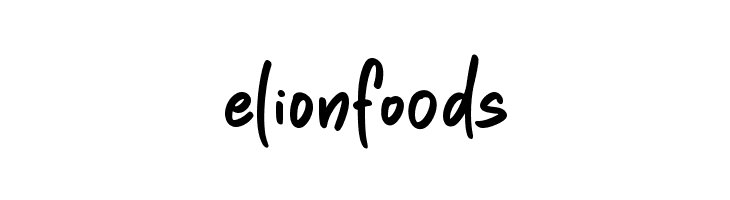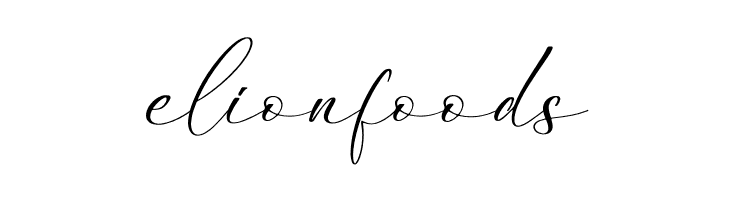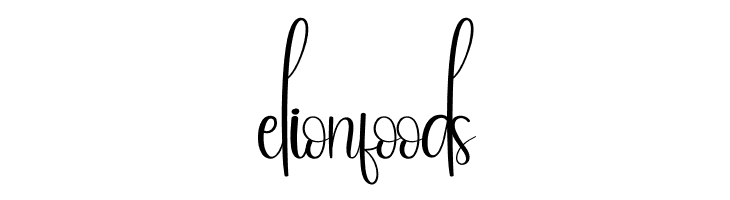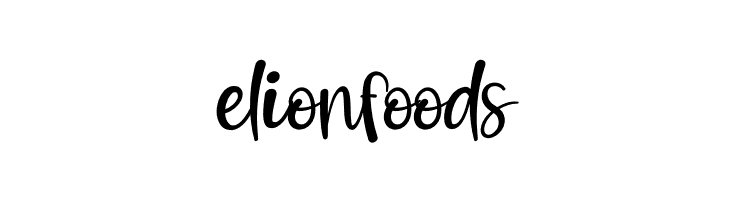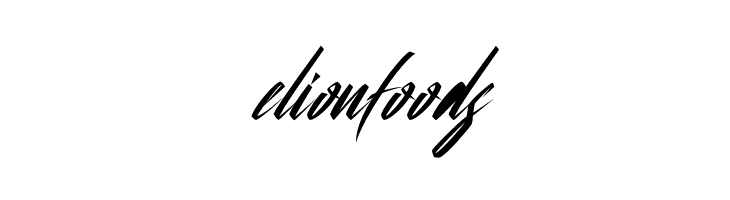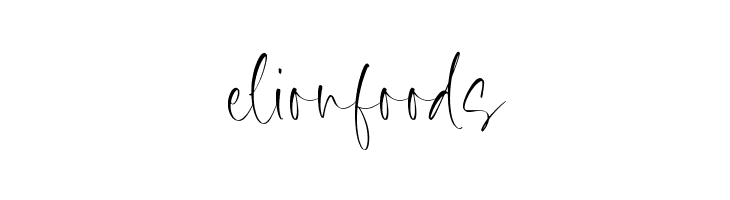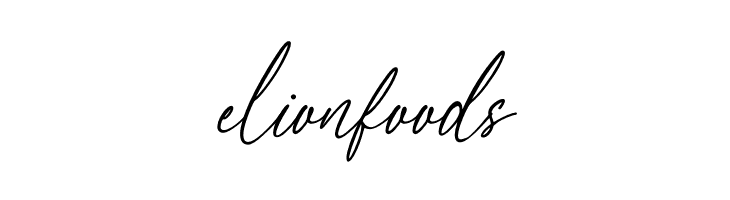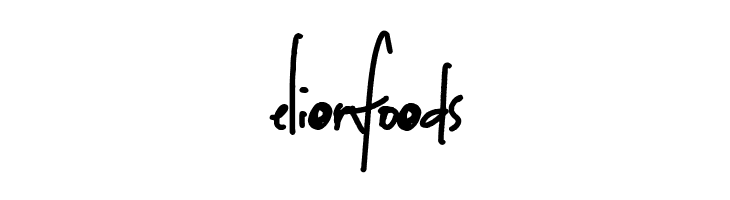
Casual handwritten script with playful, energetic strokes.
A refined, calligraphic script font with thin, elegant strokes.
Tall, thin, whimsical handwritten script with exaggerated verticals.
Casual handwritten script with tall, looping forms.
Energetic, slanted script with bold, sweeping strokes.
Elegant, airy handwritten script with tall, narrow forms.
Handwritten cursive script with a signature-like flow.
Light, sketchy handwritten font with tall, expressive forms.
Expressive, energetic handwritten style with tall, narrow characters.
Expressive handwritten font with tall, irregular forms and sketchy strokes.